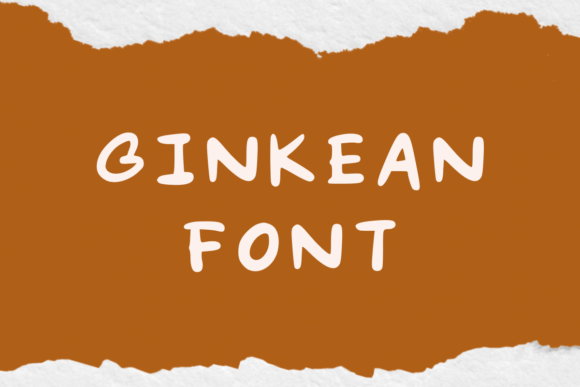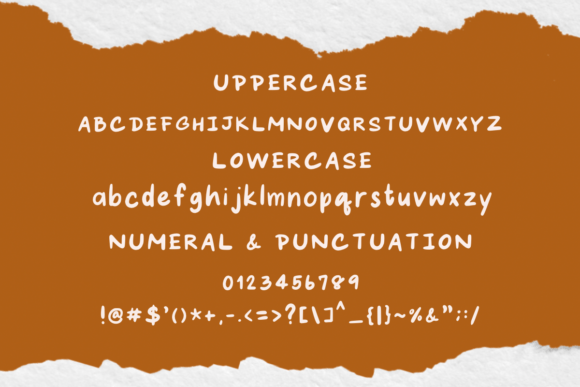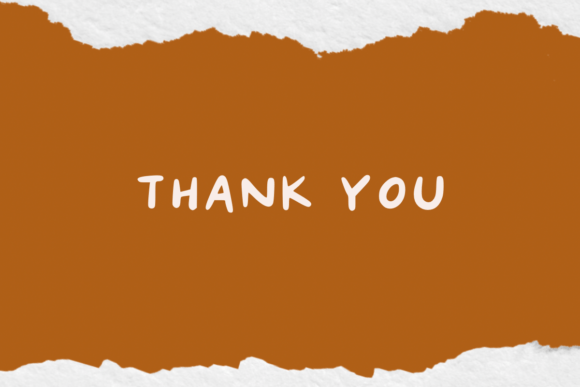
Ginkean Font
Ginkean Font Download – Fun Friendly Handwritten Script
The Ginkean Font download is a fun and friendly handwritten typeface that adds a cute and personal touch to your designs. With its playful strokes and approachable style, this font is perfect for both professional and personal use. Whether for invitations, logos, or social media content, Ginkean ensures your projects stand out with warmth and creativity.
A Fun and Friendly Handwritten Style
The Ginkean Font download features smooth curves and natural strokes that capture the charm of handwriting. Its approachable design makes text feel personal and joyful, making it ideal for projects that need a balance of friendliness and clarity.
Perfect for Invitations and Wedding Designs
The Ginkean Font download shines in wedding stationery, greeting cards, and invitations. Its sweet handwritten style adds romance and authenticity, ensuring your designs create memorable impressions.
Great for Logos and Branding
Typography defines brand identity, and the Ginkean Font download works beautifully for logos, packaging, and branding kits. Its fun yet professional strokes help businesses appear approachable while maintaining stylish credibility.
Versatile for Stationery and Social Media
From planners and labels to Instagram posts and digital banners, the Ginkean Font download adapts seamlessly across print and digital media. Its versatility makes it a go-to choice for creatives looking to add charm to their designs.
Readability with a Cute Personality
Some handwritten fonts sacrifice clarity for flair, but the Ginkean Font download maintains excellent readability. Its playful design works well in both large titles and medium-sized text, making it reliable across different formats.
Why Choose Ginkean Font?
Among handwritten typefaces, the GinkeanFont download stands out with its fun, friendly personality and versatile usability. It’s polished enough for branding but playful enough for personal projects, giving designers maximum flexibility.
Add Playful Charm to Your Projects
Typography sets the mood of a design, and the GinkeanFont download helps you create joyful, approachable, and stylish projects. Whether for stationery, invitations, or logos, this font ensures your work feels personal and full of character.